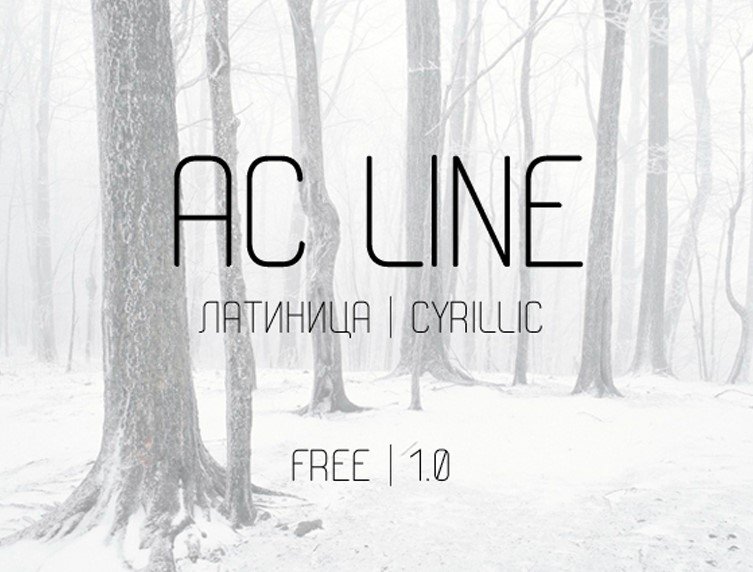
Hello graphics enthusiasts If you create graphics, you’re likely familiar with the typeface that best complements your design. Many typefaces require purchase due to their superior qualities, but today we’re excited to share an excellent typeface that is available for free. Introducing the AC Line Font—a sleek and smooth typeface that also supports multiple languages.
This is one of the best traditional typefaces that is perfect to use as pairing with kawaii font which works easier for all required tasks. It will perfect in all sizes but works perfectly in the size of em or rem.
You can easily view its consistency in all of its letters that will be great for any task. It contains more than 200 glyphs and punctuators for free.
View Of AC Line Font
This is a super classy and the best typeface that has amazing clarity and perfectness. You can utilize it for your ongoing as well future projects as well. You can use it as pairing with monument extended font.
AC Line font is a unique and elegant typeface that has sharp characters which look great in all designs. You can download and use it for your commercial designs and make them attractive for free. This is the perfect typeface to work with the combination of oxygen font.